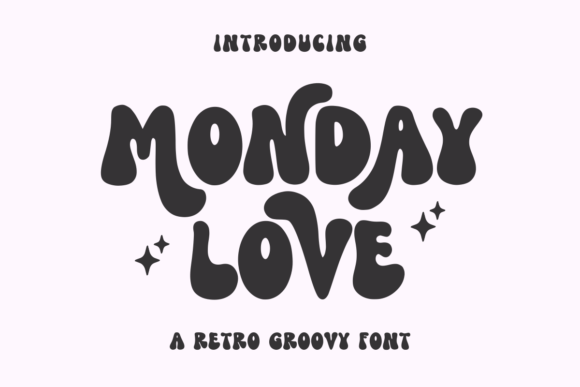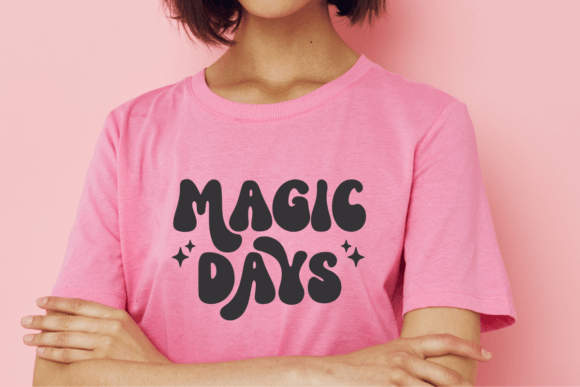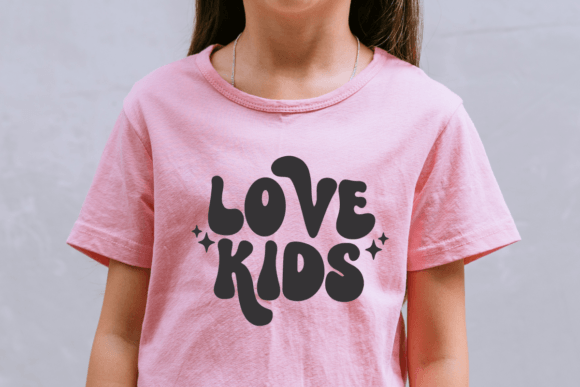
Monday Love Font
About the Monday Love Font
Crafted with precision, the Monday Love Font is ready to bring your ideas to life. Monday Love.’ As a Retro Groovy Font, its unique allure shines brightest when a playful mix of lowercase and uppercase letters dance across the page. Ideally suited to a myriad of creations such as crafts, t-shirts, cosy hoodies, adorable mugs, quirky packaging, welcoming doormats, sleek tumblers, striking posters and handy tote bags – the possibilities are truly endless! Fall in love with this stylish font and allow its vintage flair to inspire your craftsmanship.
Monday Love’s retro-groovy style is best suited for headlines, short text blocks on packaging, and eye-catching posters. Its playful energy works well for branding projects targeting a younger demographic or those emphasizing fun and nostalgia. Avoid using it for body text or UI elements where readability is paramount; the condensed letterforms can hinder legibility in longer passages.
Pairing Monday Love with a clean sans-serif like Helvetica Neue for body copy creates a strong contrast and balances its playful energy. For a more vintage feel, consider pairing it with a serif font like Playfair Display. A script font like Great Vibes could also add a touch of elegance while complementing the font’s overall retro aesthetic.
The font’s personality is best described as playful and retro, with a touch of vintage charm. It’s ideal for brands seeking a fun, approachable, and slightly nostalgic aesthetic.
Monday Love Font Usage Examples
Monday Love Font Example